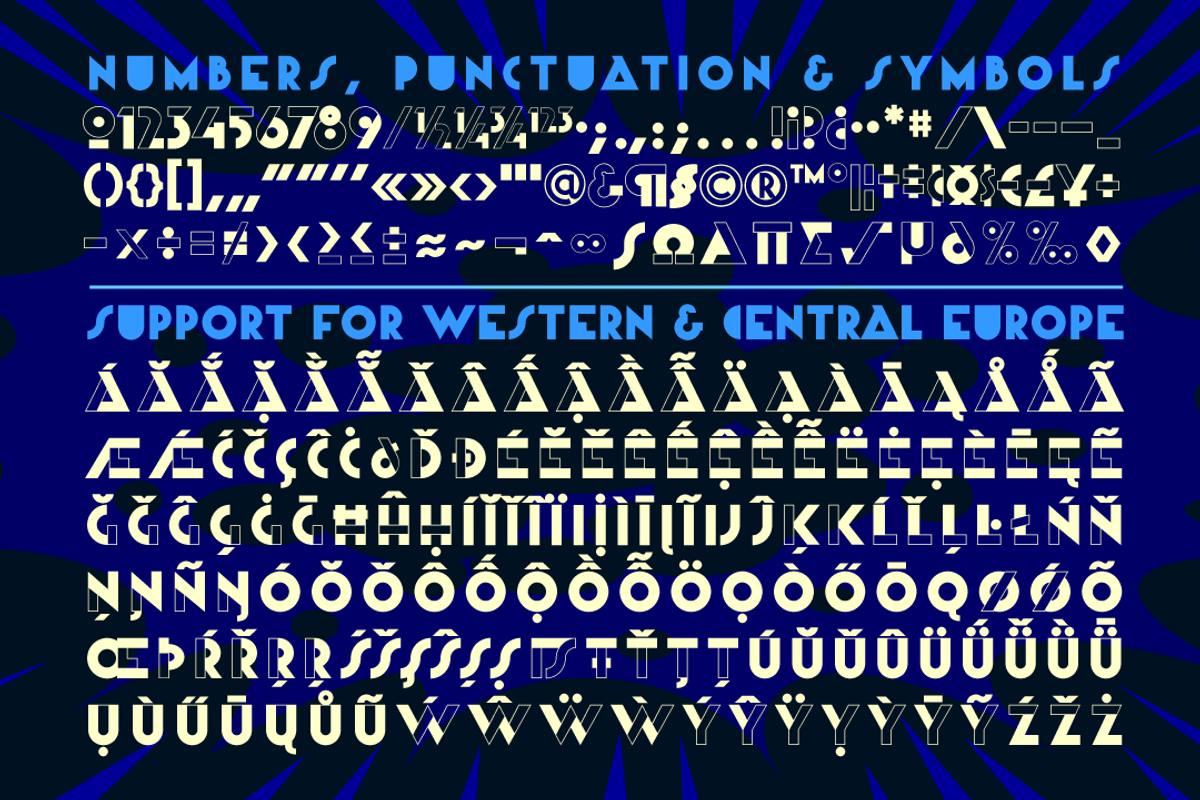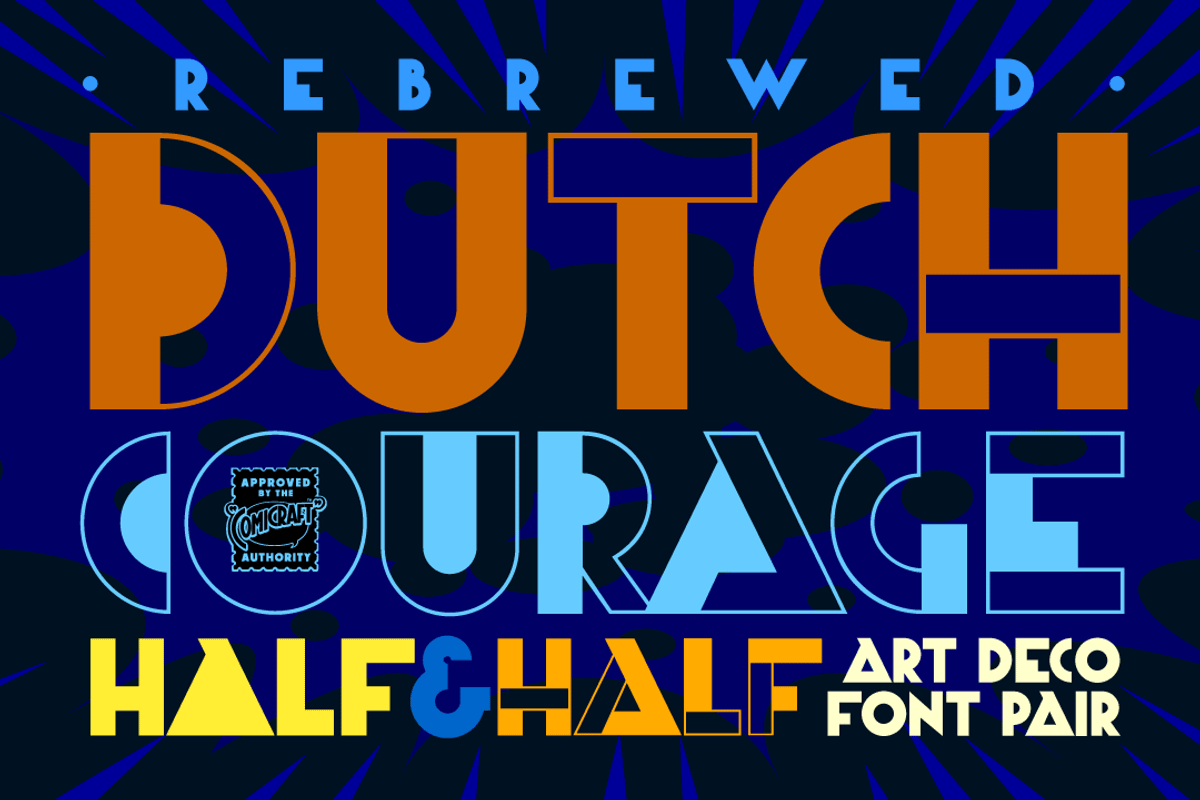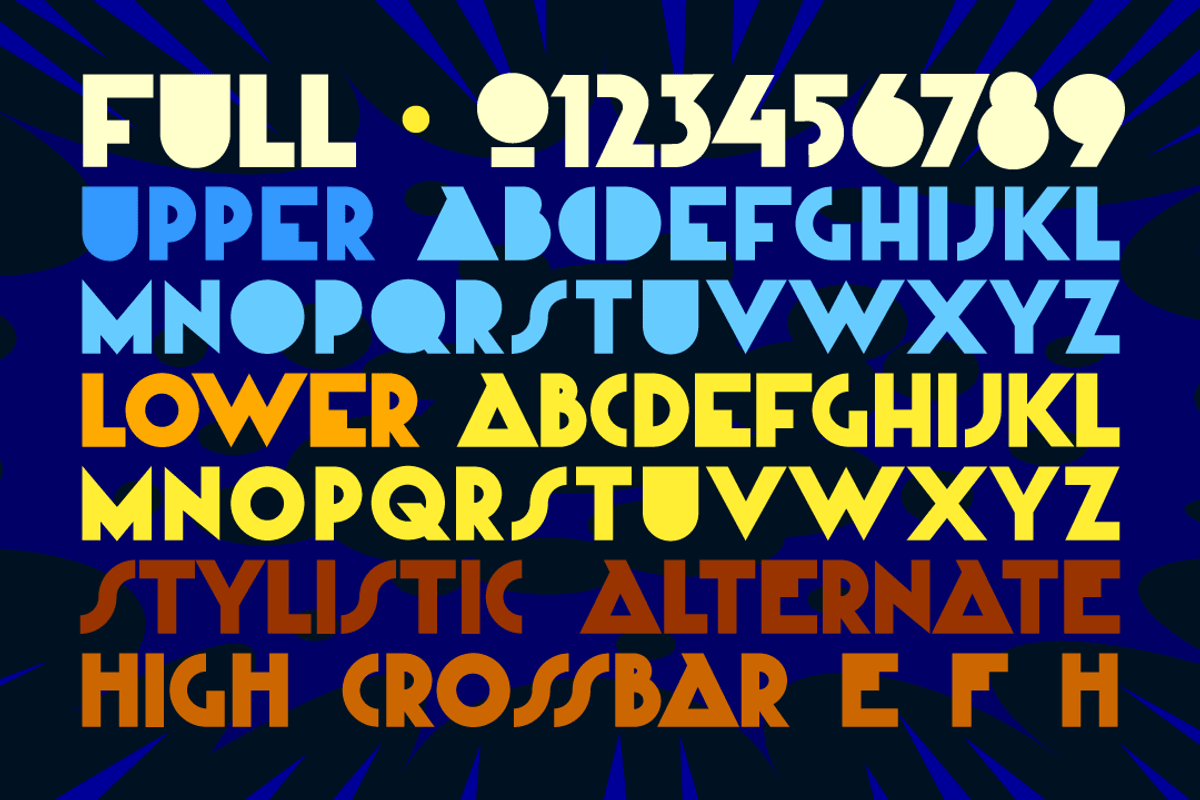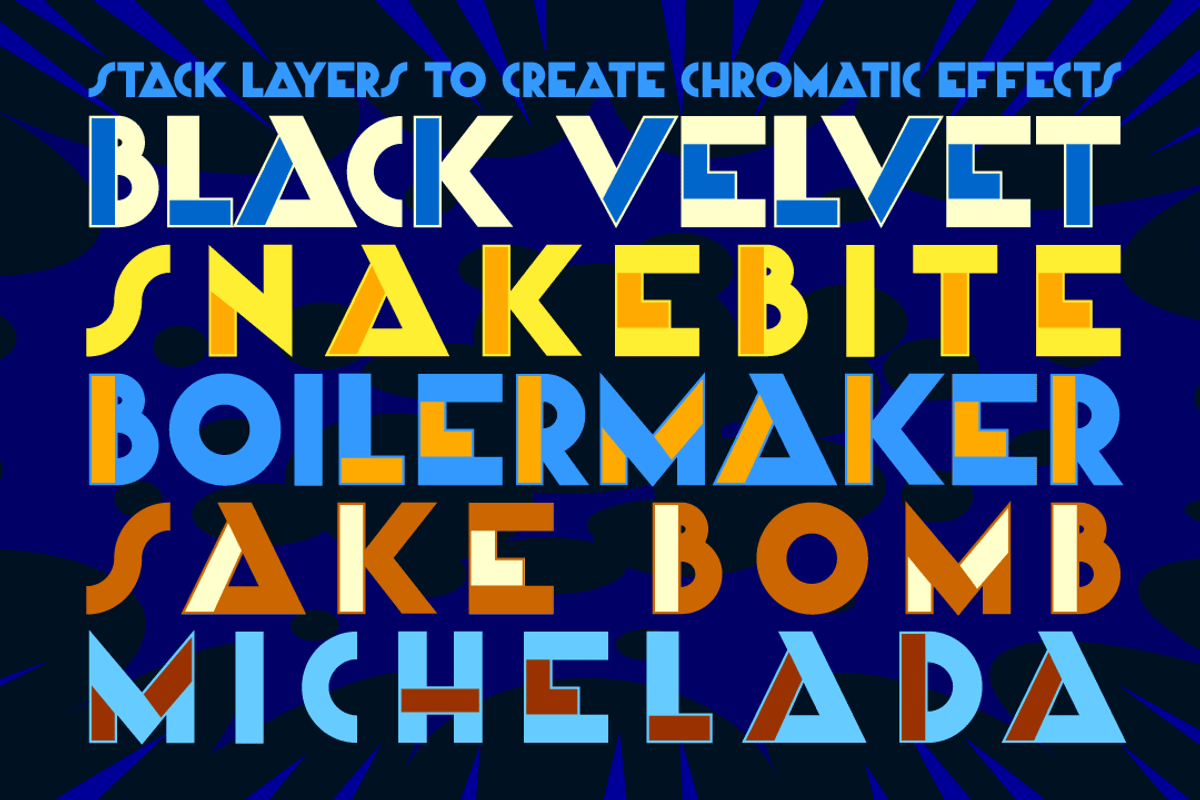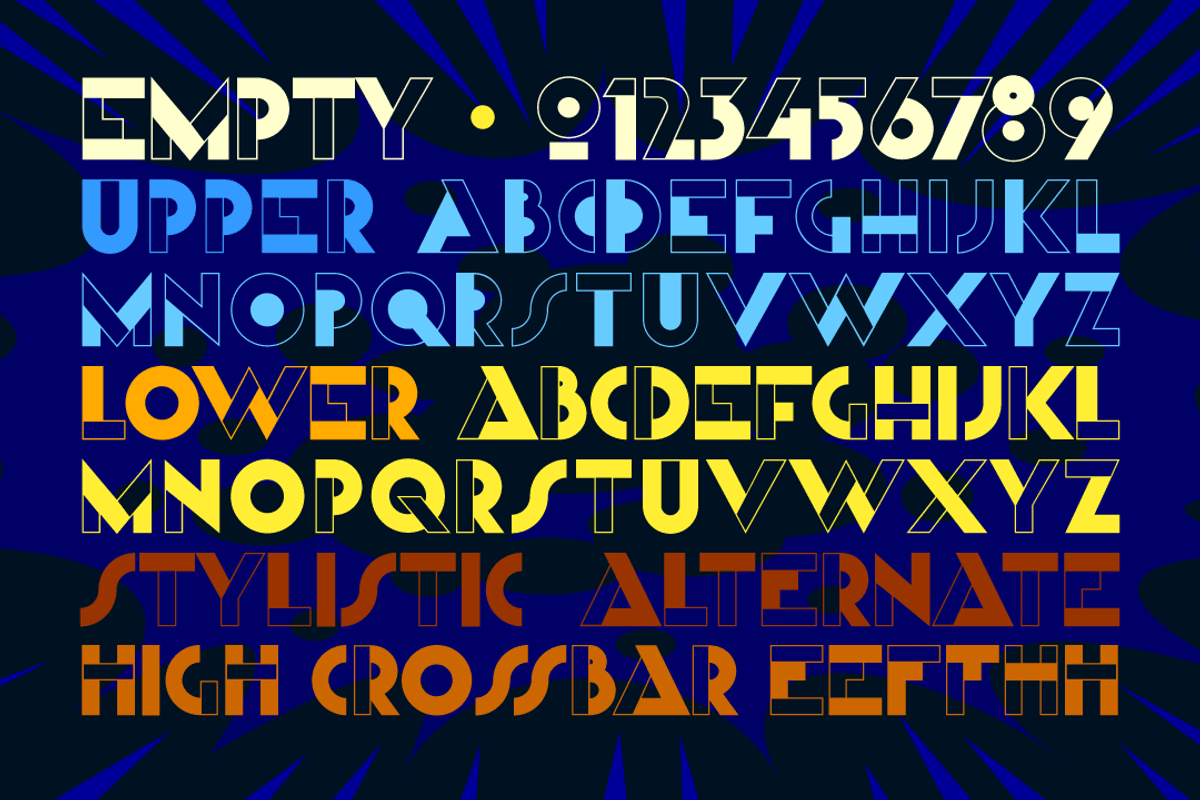
Dutch Courage Half&Half - Art Deco
Citizens of greater metropolis rejoice! Comicraft’s Dutch Masters have Rebrewed DUTCH COURAGE, the fonts originally created to give a crisp, clean, Art Deco look to DC's BATMAN ADVENTURES, and later known for lending Kurt Busiek’s ASTRO CITY its classy, streamlined typographic style.
HALF & HALF is an ultrabold display font in "Empty" and "Full" styles, which can be layered to create exciting chromatic effects.